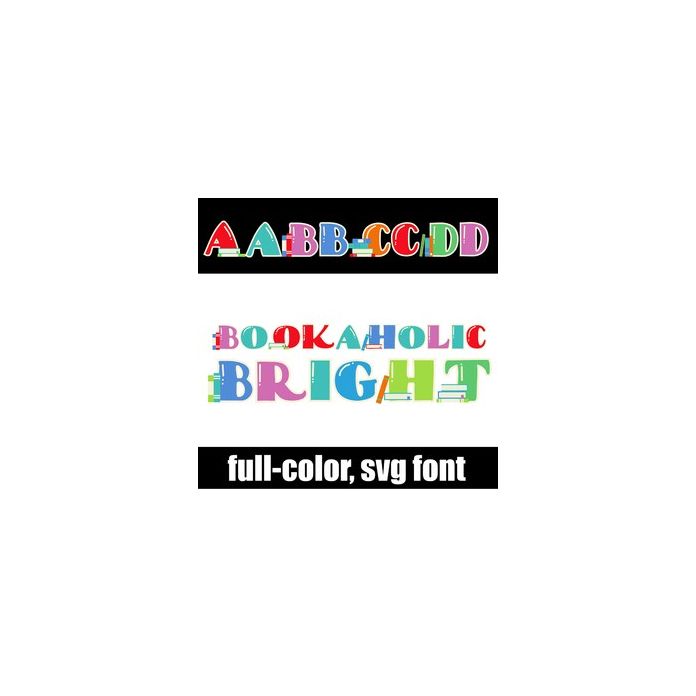
This full-color font features a cute serif font and books throughout. There is an alt case w/ additional colors you can access through your system or Silhouette's glyph map.